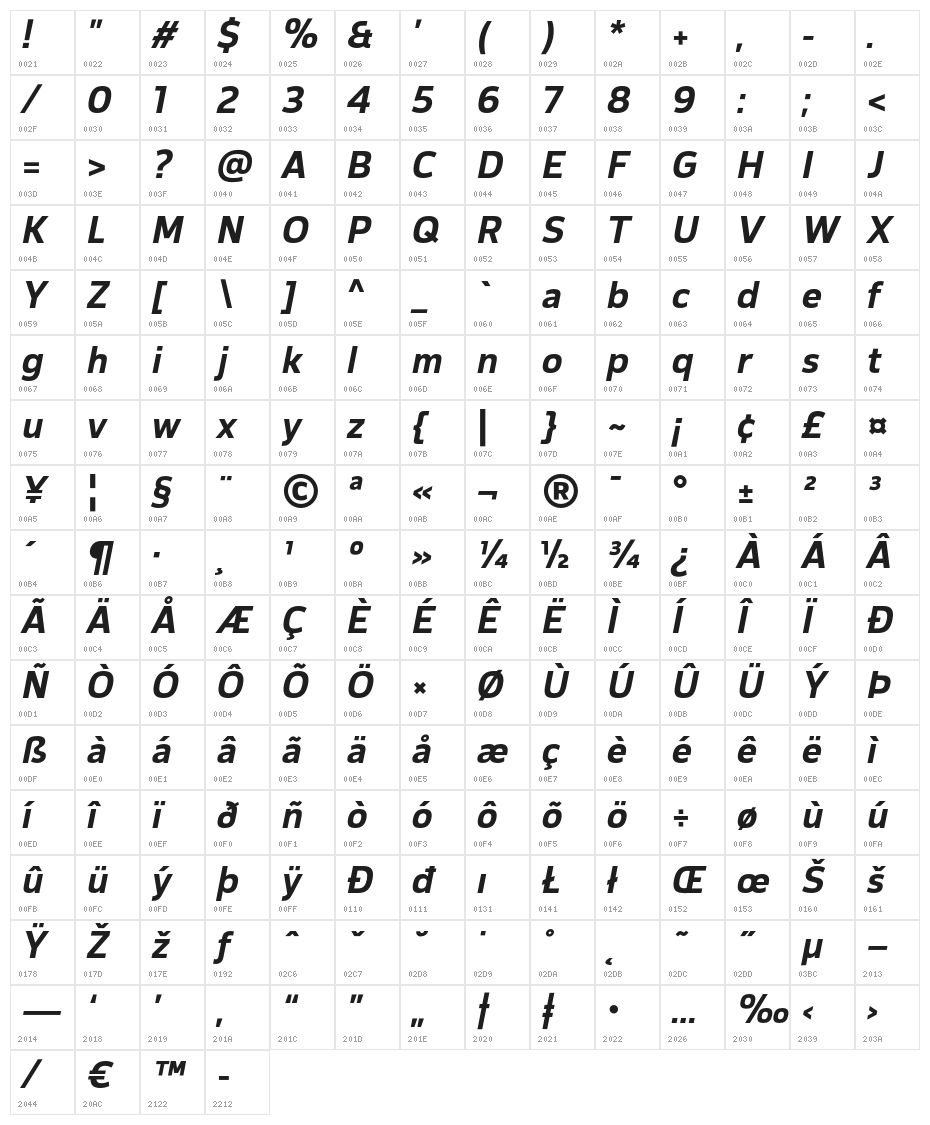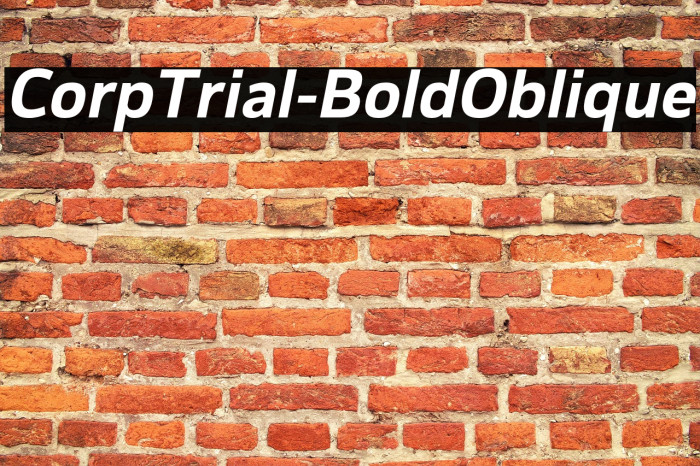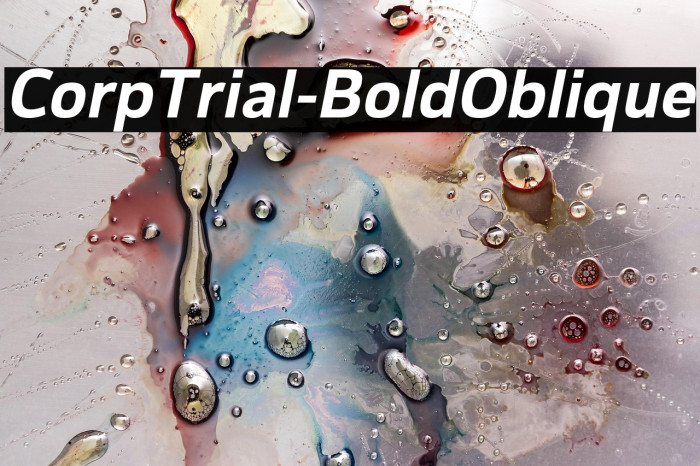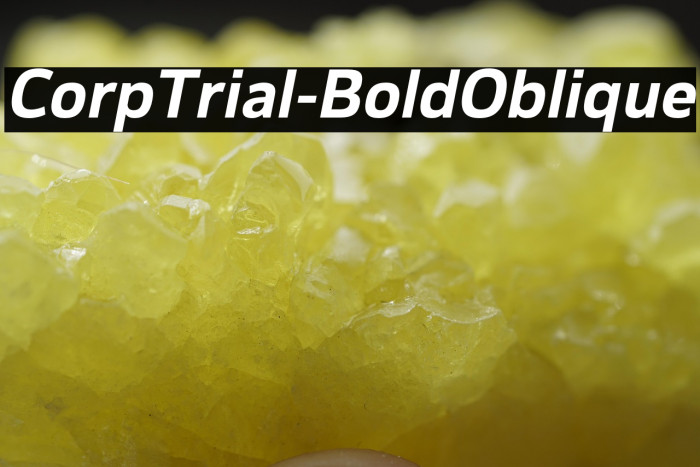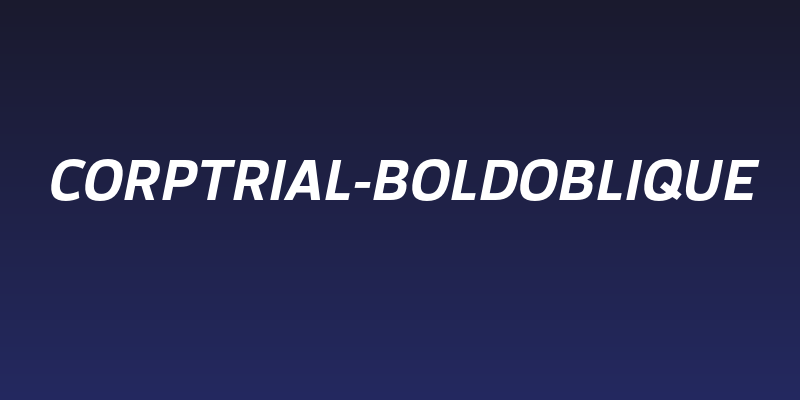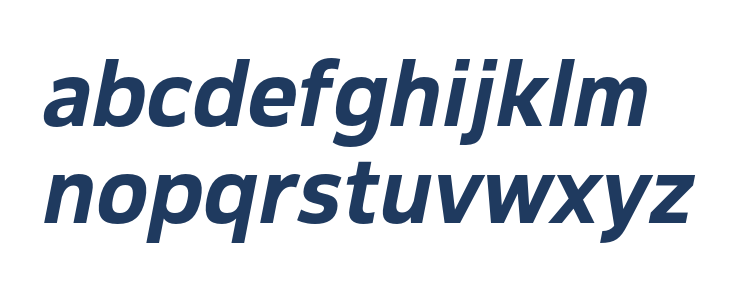
CorpTrial-BoldOblique Font
CorpTrial-BoldOblique Description
This font features a bold and oblique style, characterized by its strong and assertive presence. The letters are slanted, giving a dynamic and forward-moving appearance. The strokes are thick and consistent, providing a sense of stability and confidence. The font maintains a clean and modern aesthetic, making it suitable for various professional applications. Its design is straightforward, with minimal decorative elements, ensuring readability and clarity. The characters are well-spaced, allowing for easy legibility even at smaller sizes. This font is versatile, fitting well in both digital and print media.